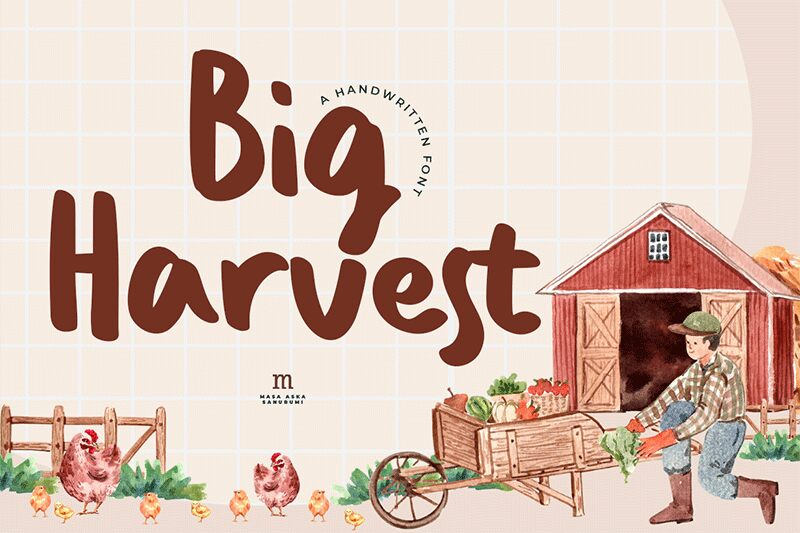
Big Harvest, a bold creation by Masa Aska Sanurumi, brings the warmth and personal touch of handwritten style to the digital realm. This font exudes a robust and friendly character, with letters that seem to dance between carefree casualness and assertive confidence. Each stroke bears the mark of human touch, making it an ideal choice for projects that require a sense of intimacy and approachability.
With its bold weight, Big Harvest stands out in visual communications, ensuring that messages are not only seen but felt. Its aesthetic appeal lies in its ability to balance legibility with personality - a rare find in handwritten fonts. This makes it versatile for branding, advertising campaigns, product packaging or any creative endeavor aiming to convey authenticity and originality.
The hand-crafted nature of Big Harvest lends itself beautifully to designs that aim to strike an emotional chord with their audience. Whether on screen or print, this font is poised to harvest attention and sow the seeds of memorable branding experiences.